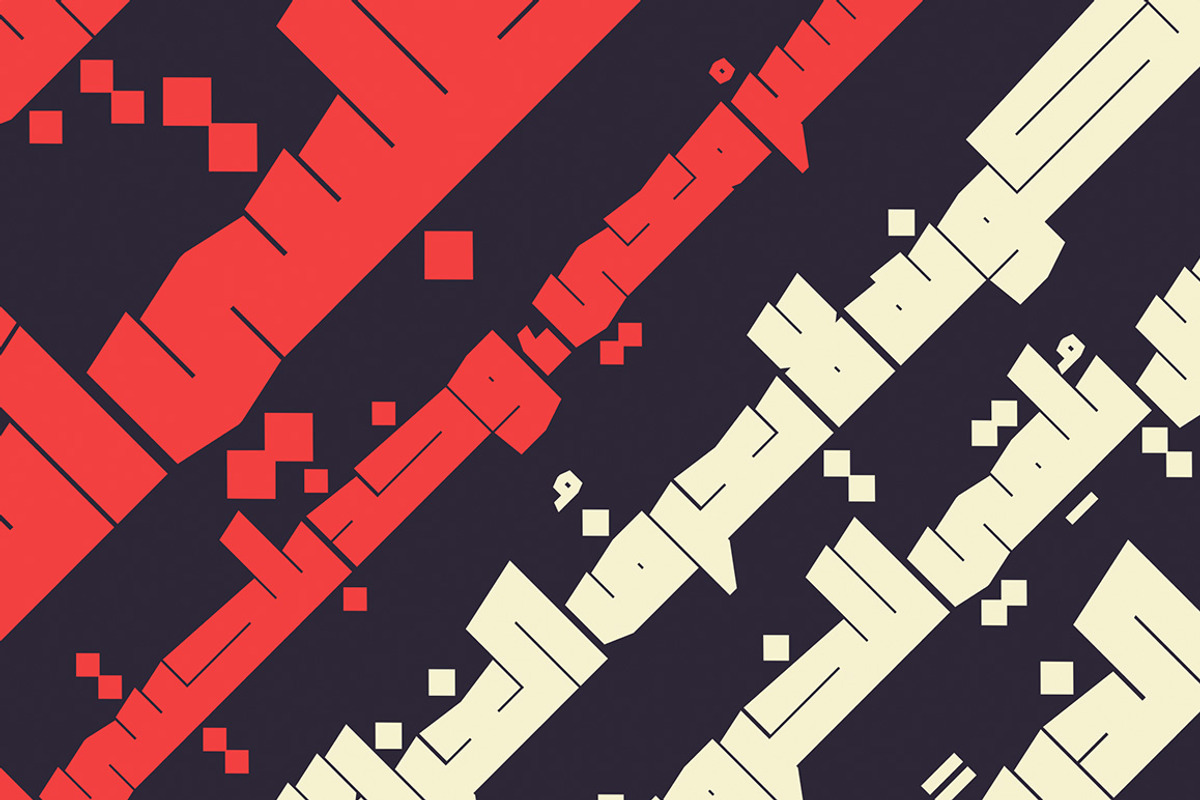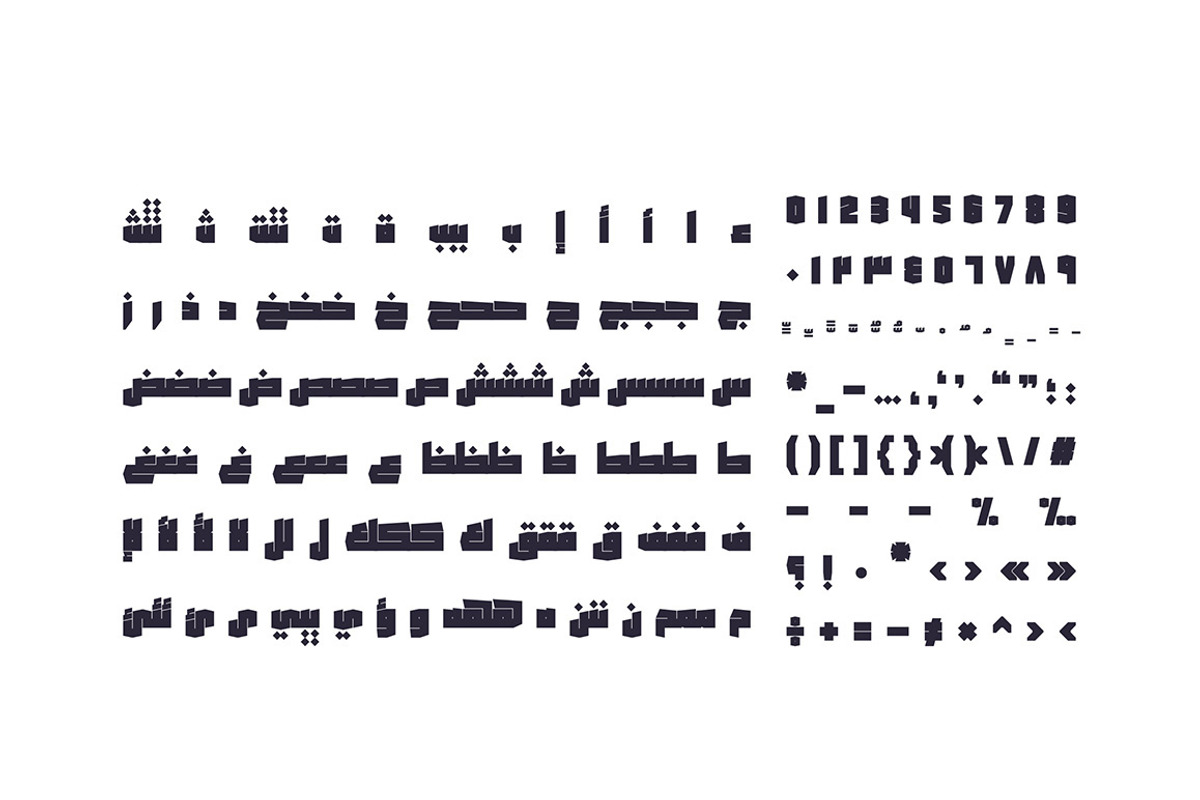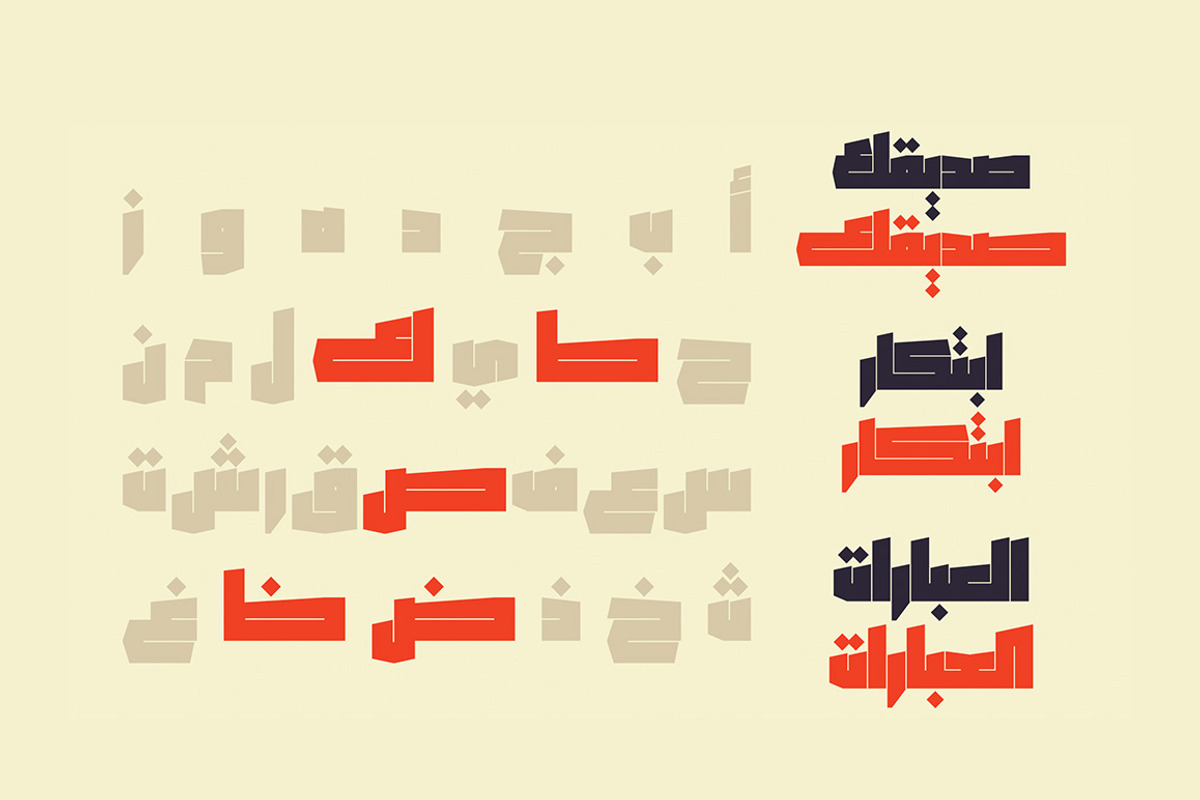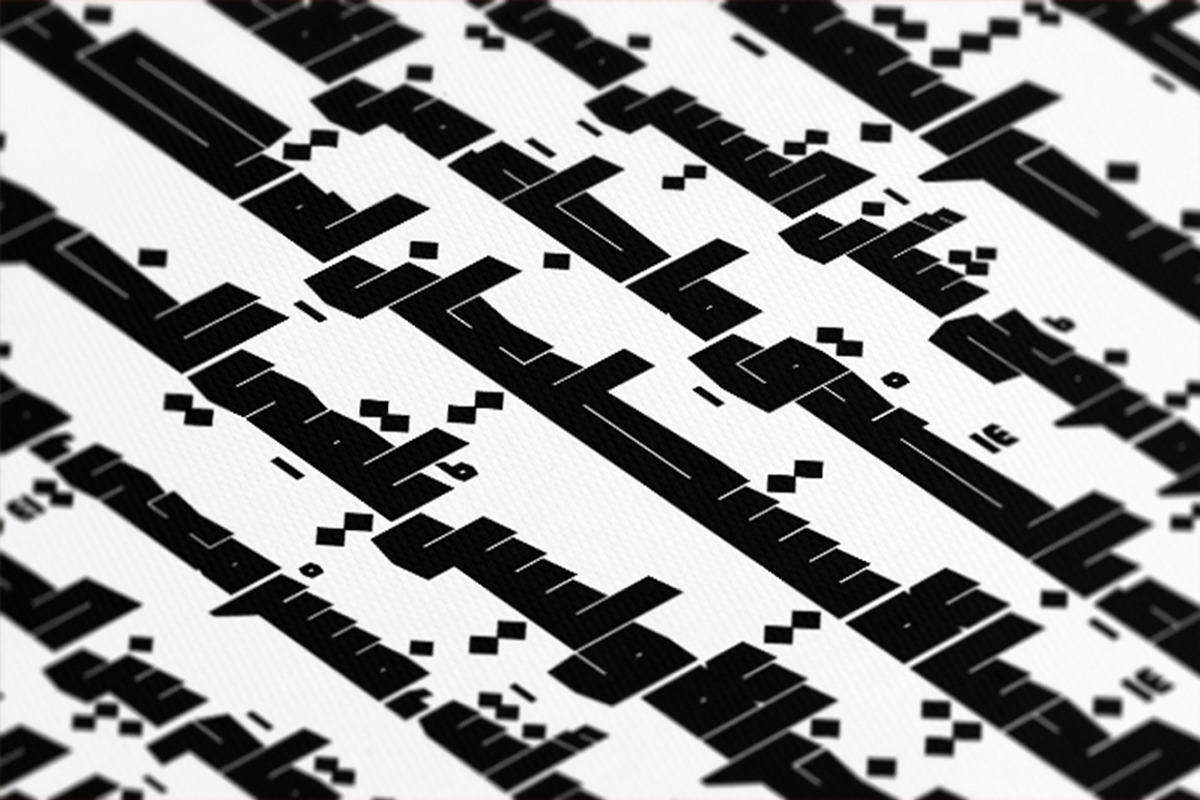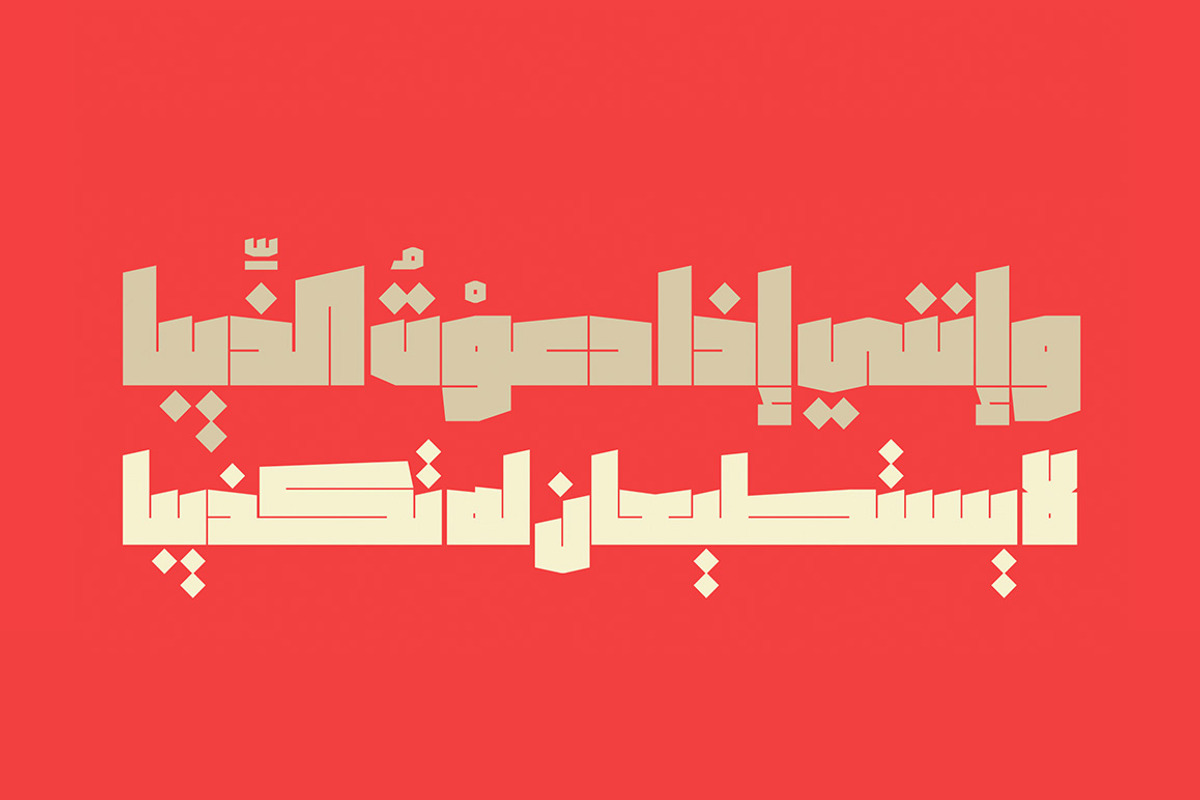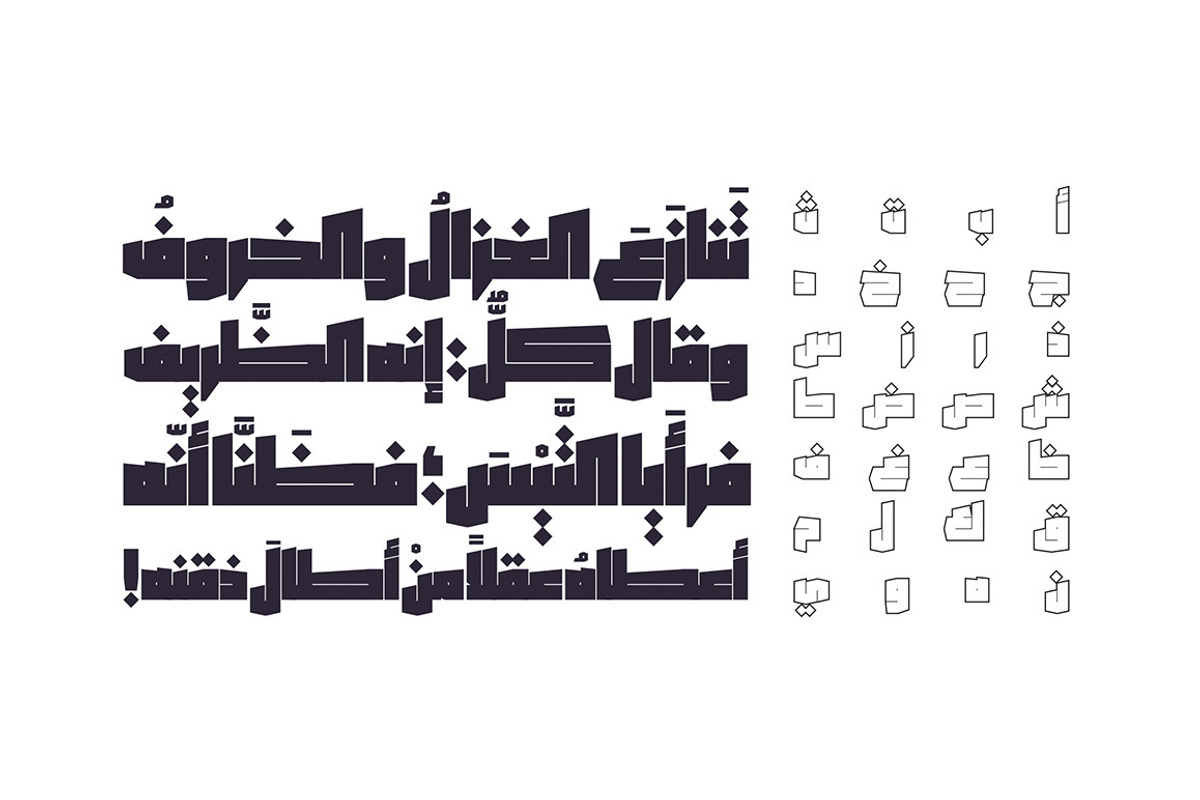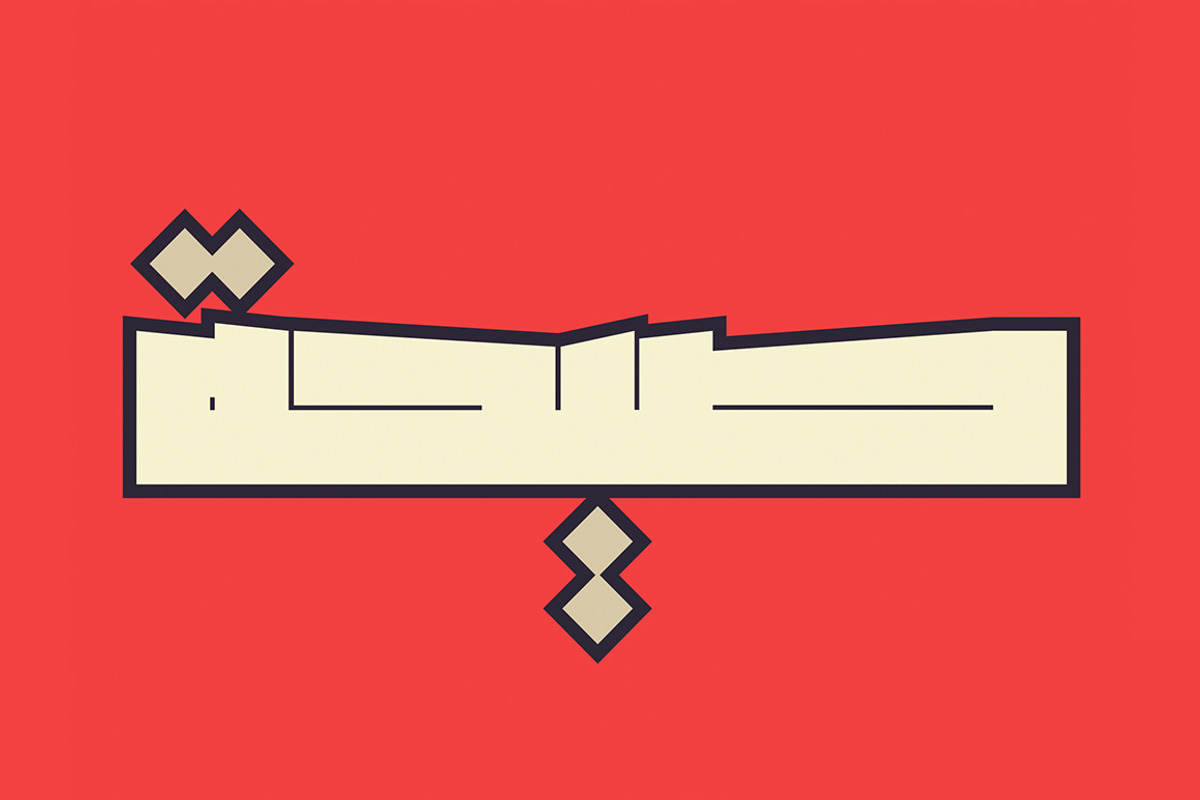
Saiihah - Arabic Font
Saiihah (the Arabic for 'Shout') is an Arabic display font with an extra heavy style. It suits branding, posters and advertising. Saiihah supports Windows, Mac and mobile applications.